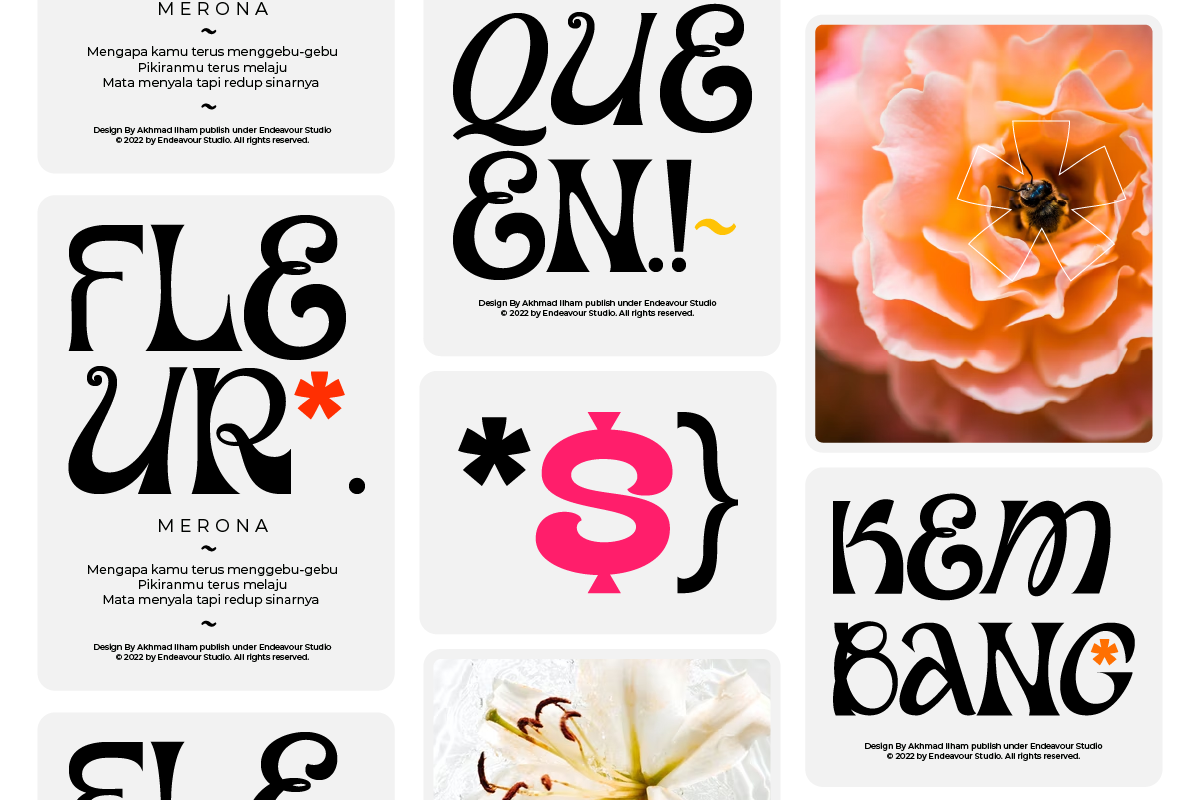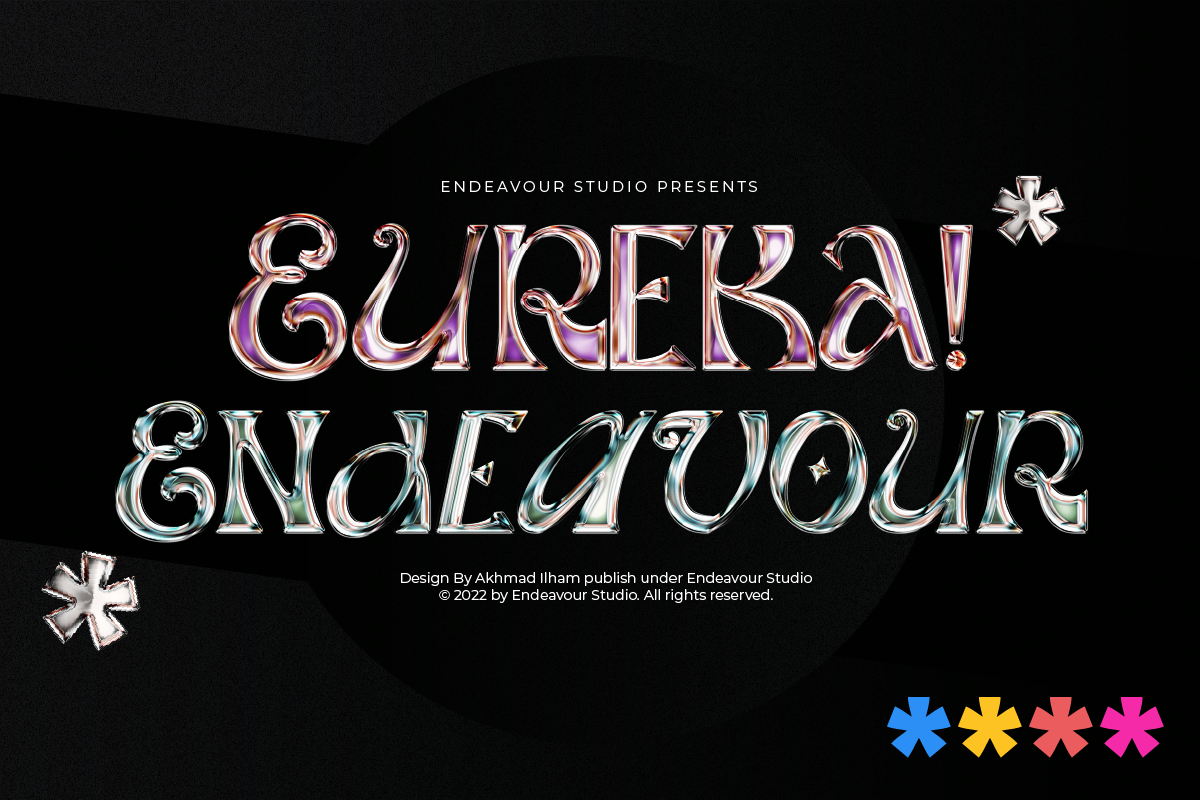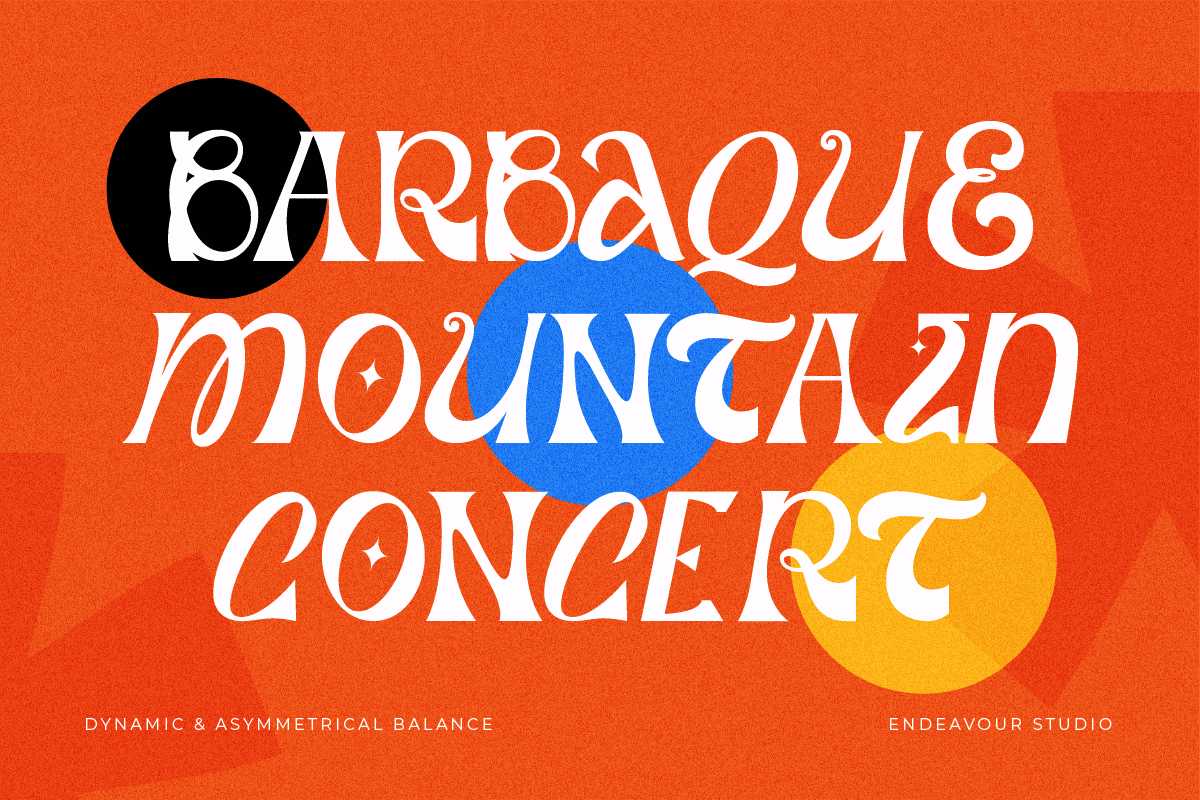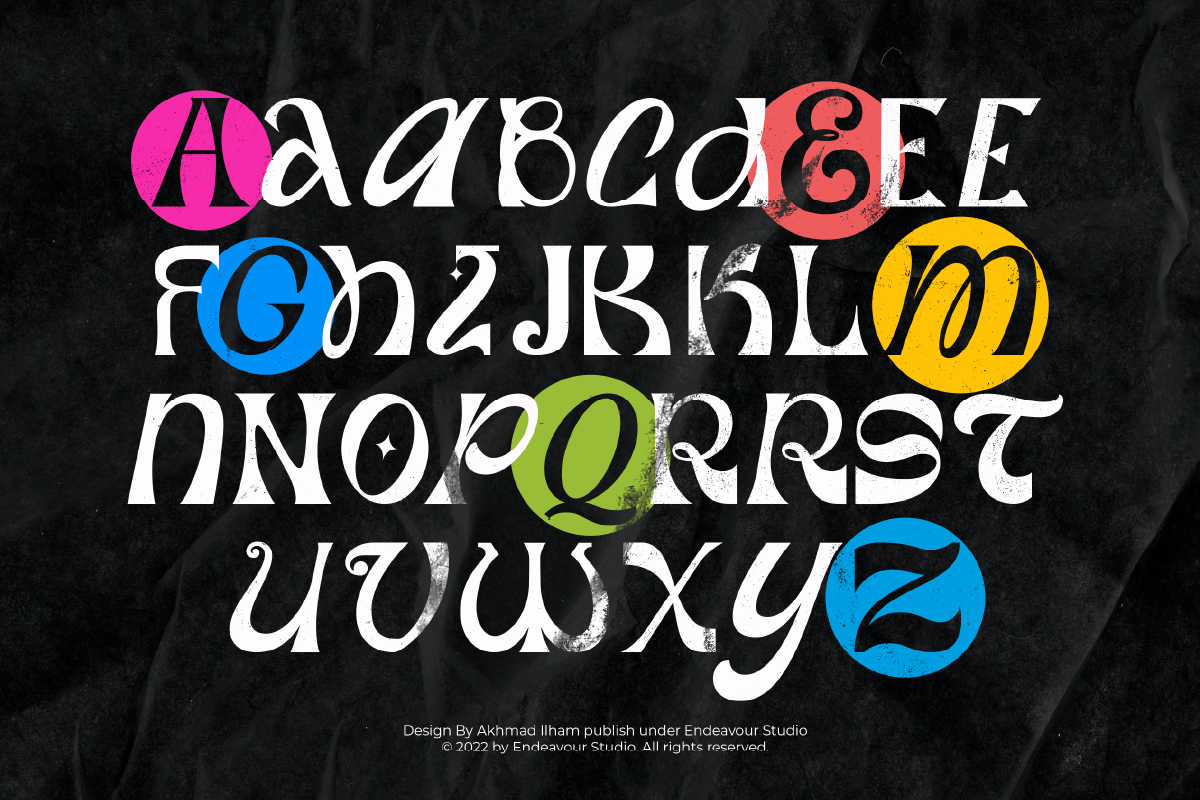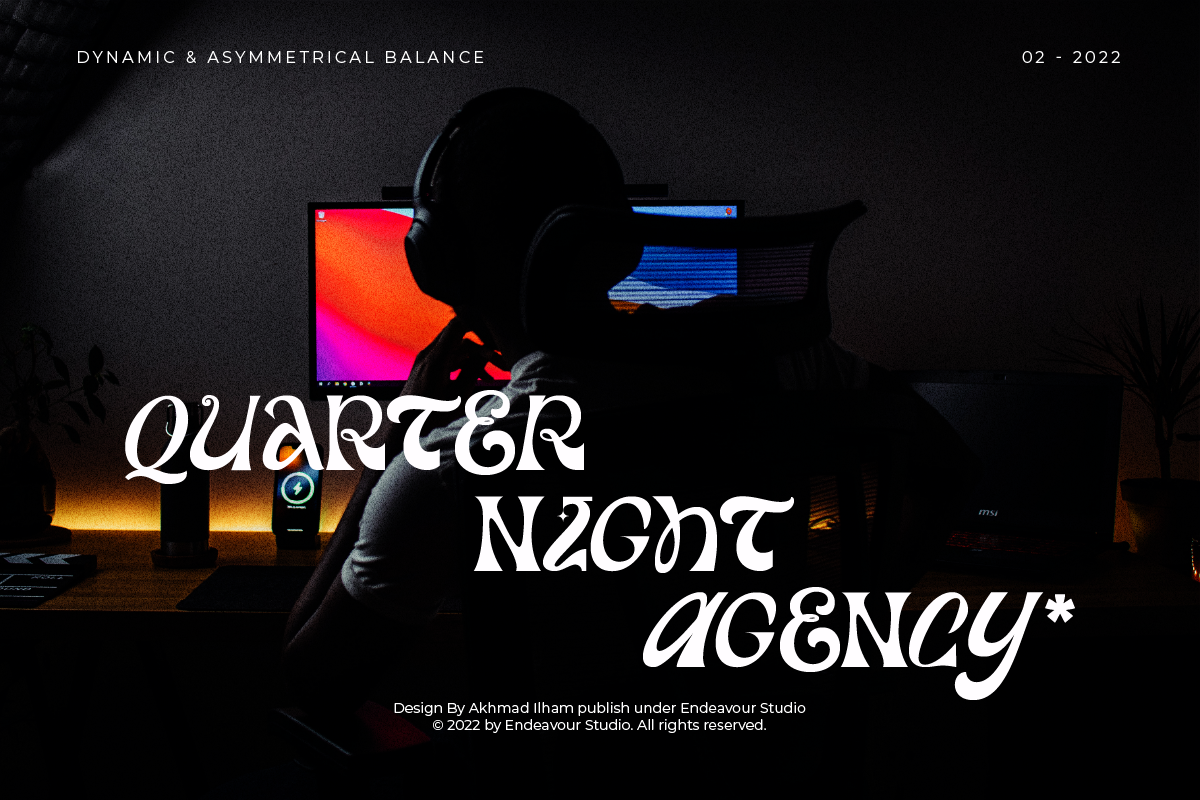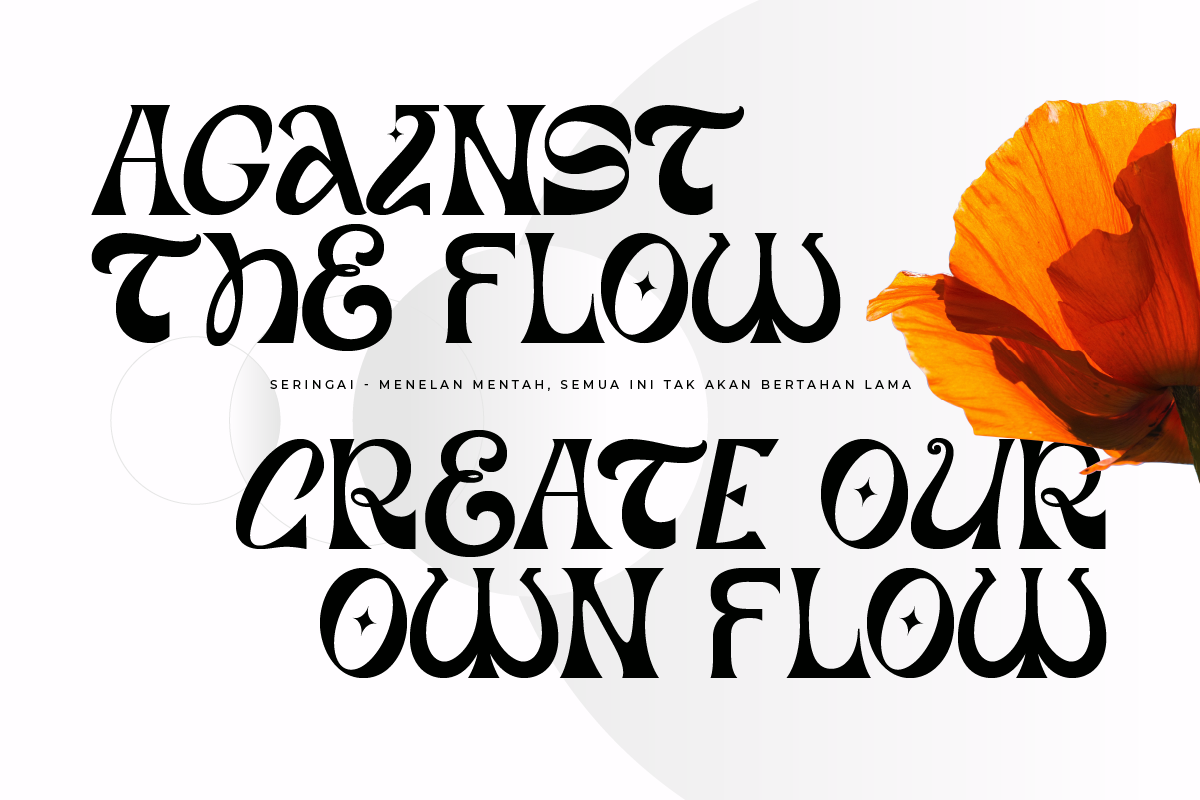
Eureka Serif Display Font
Eureka! That is what Arcimides stated, and it is also what we stated about this font. To reach our own harmony, we must push the limits of all typographic fundamentals. We're not concerned with all of the principles of typography. What we're interested in is how to accomplish full asymmetrical balance while still using a dynamic typeface. That's why we named this typeface Eureka, an Aha moment that means standing out in a crowded market.